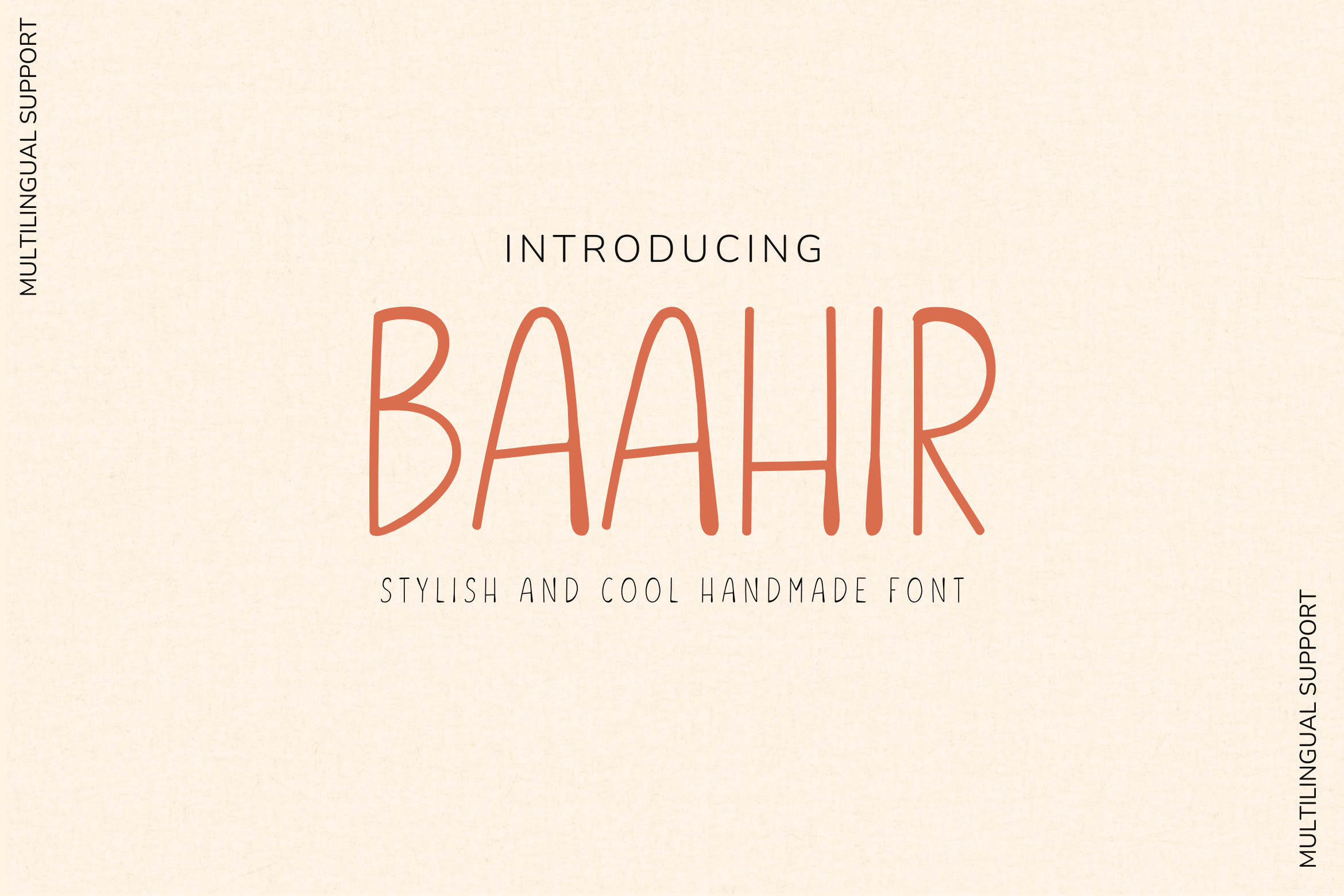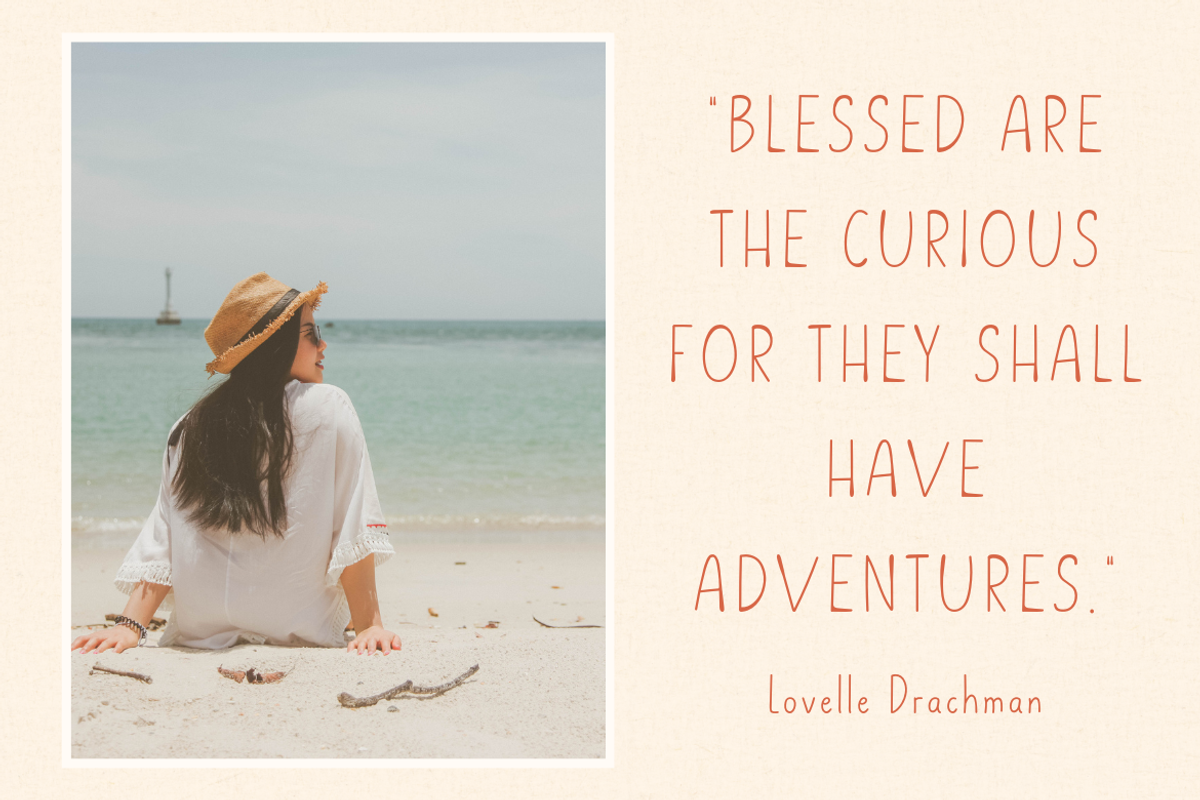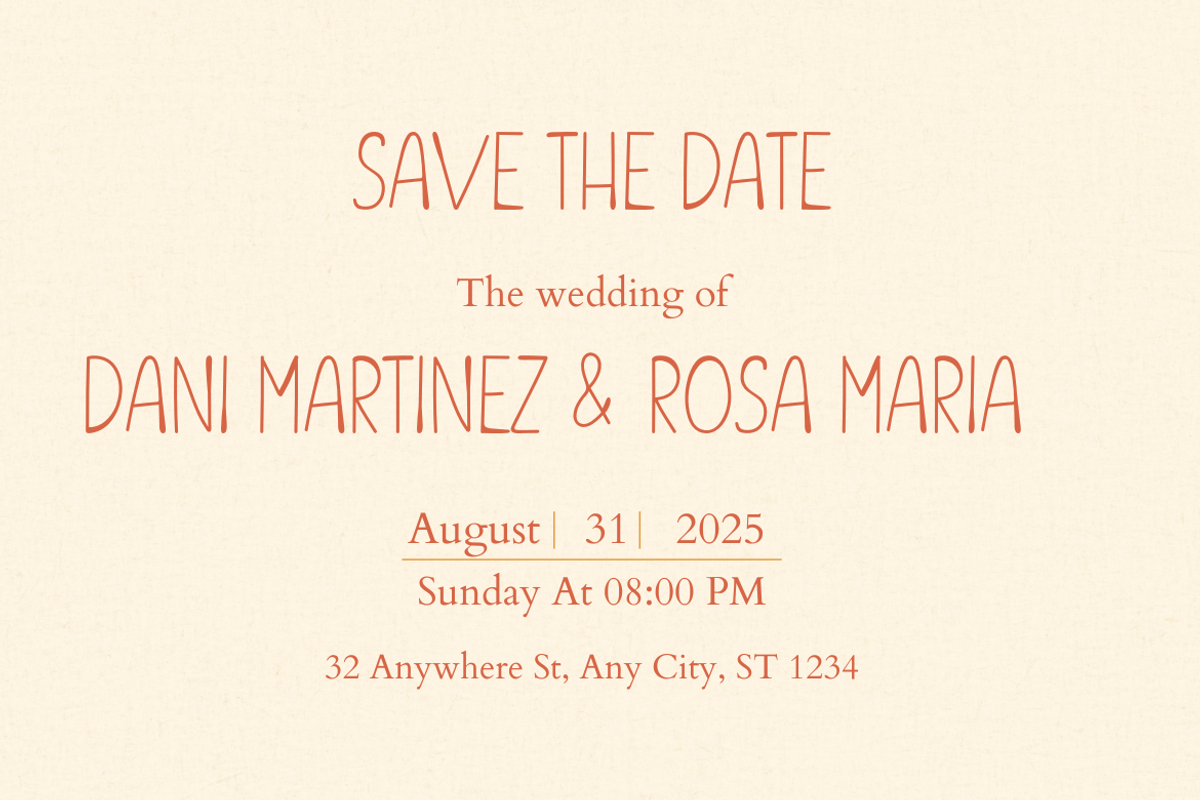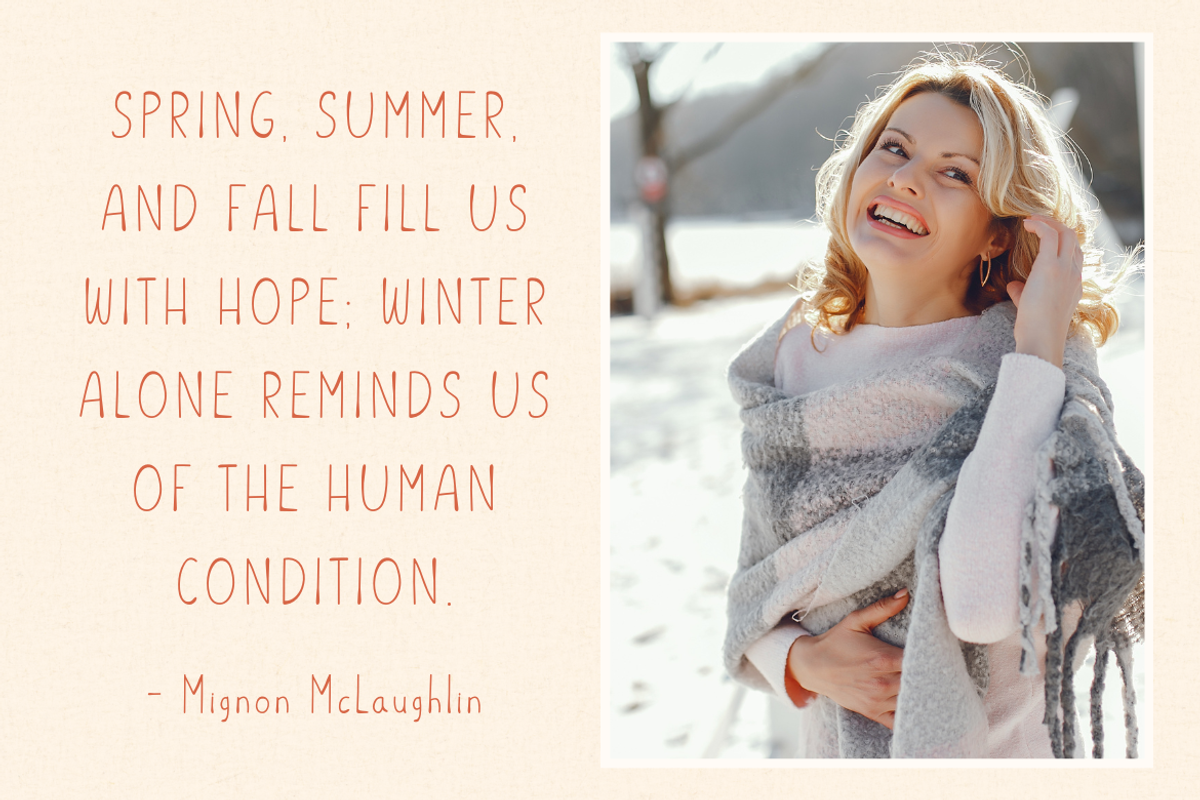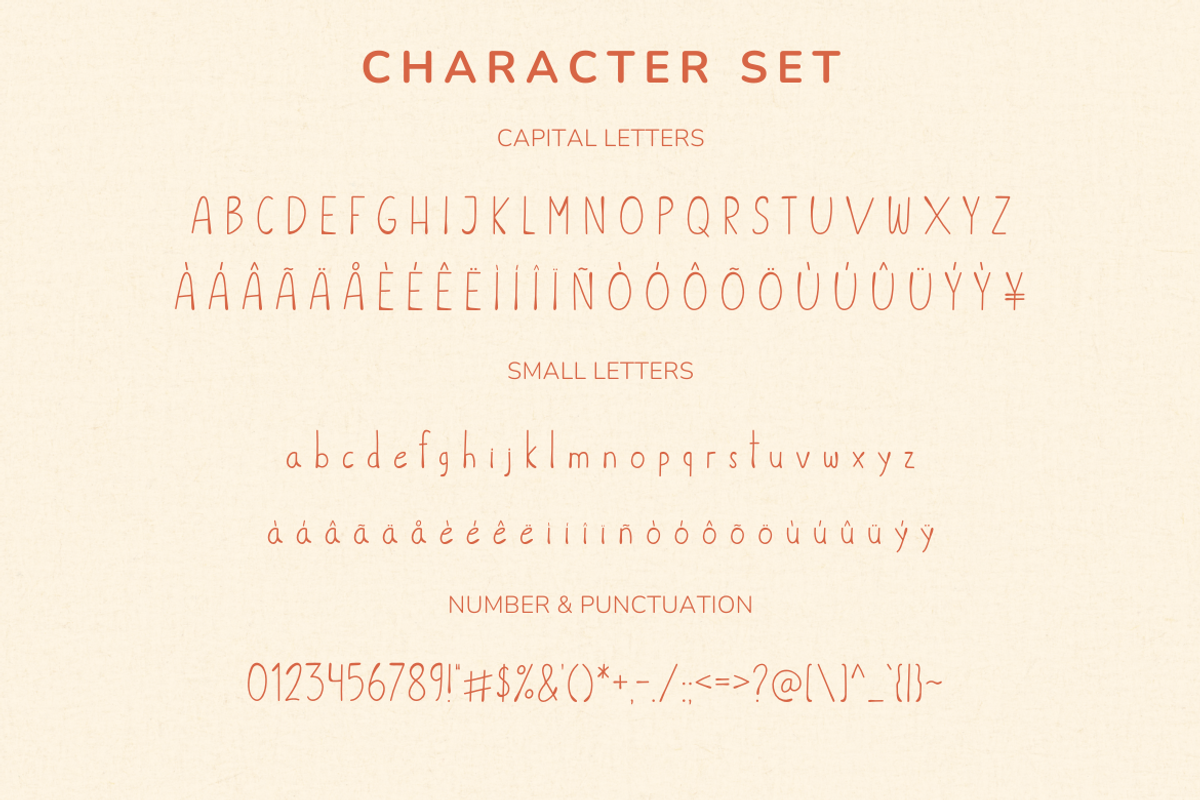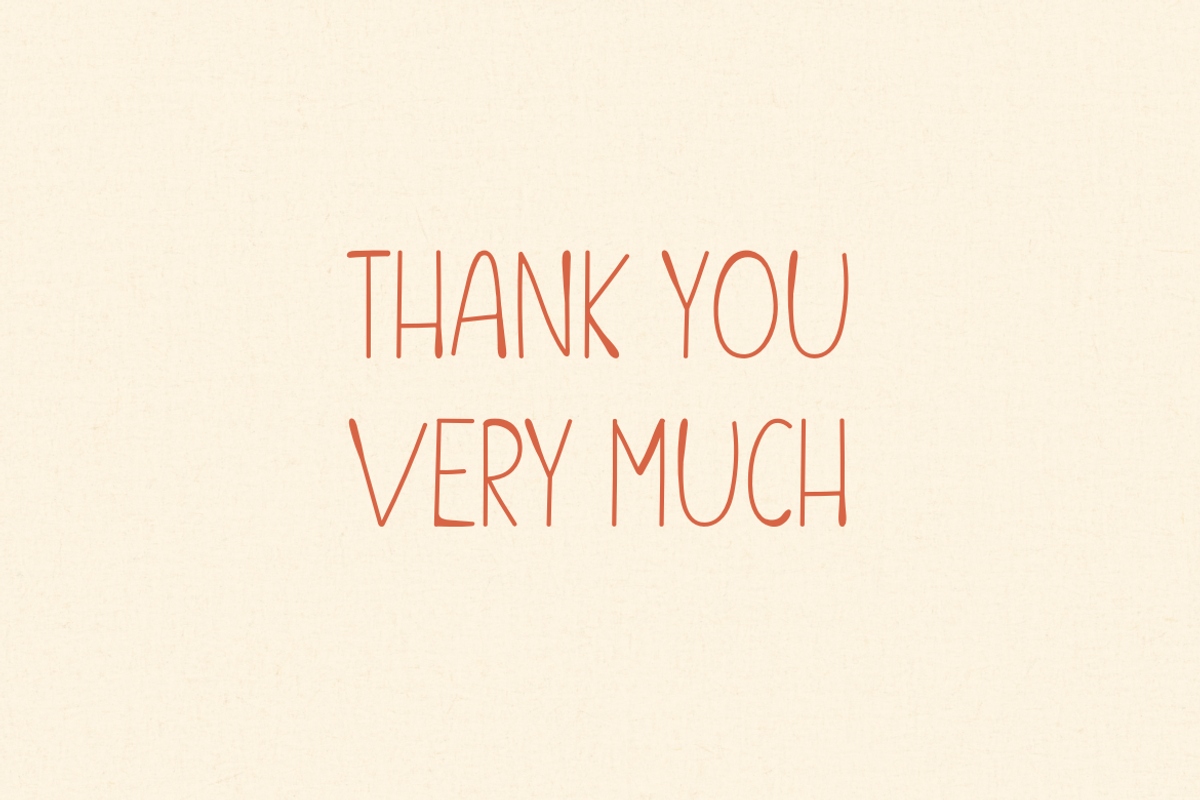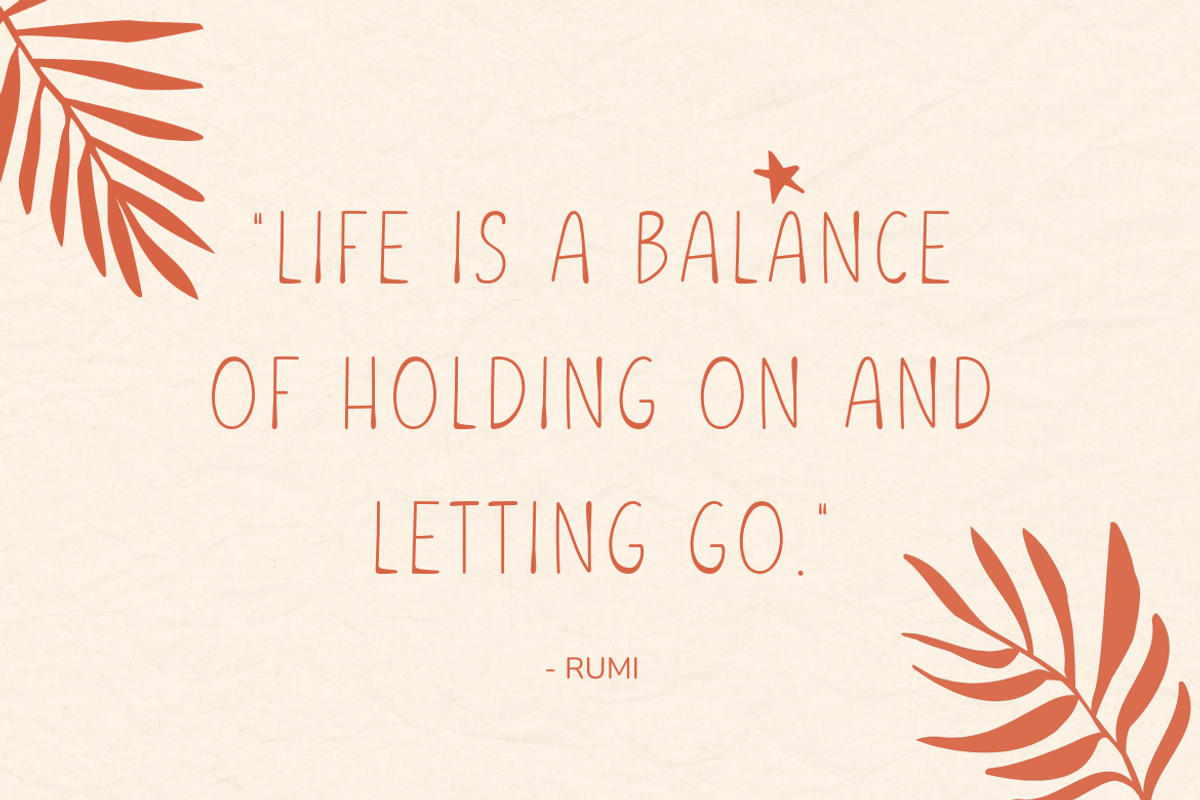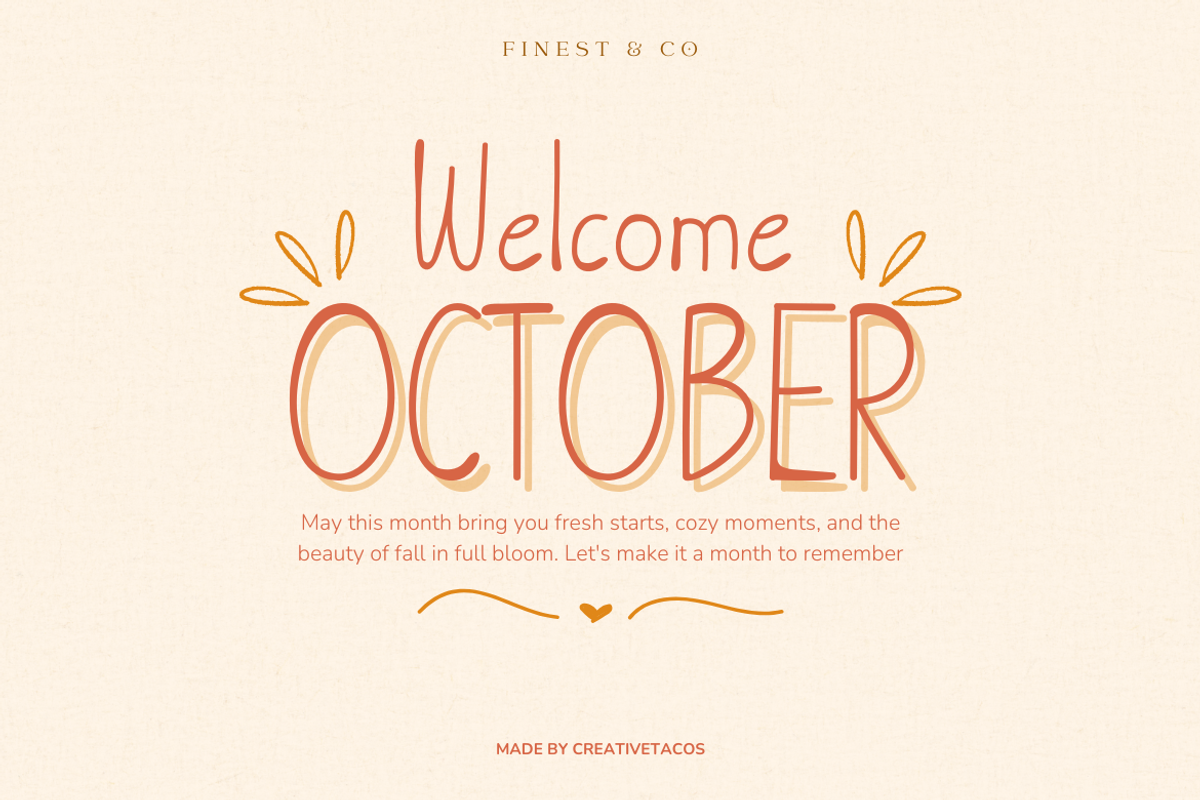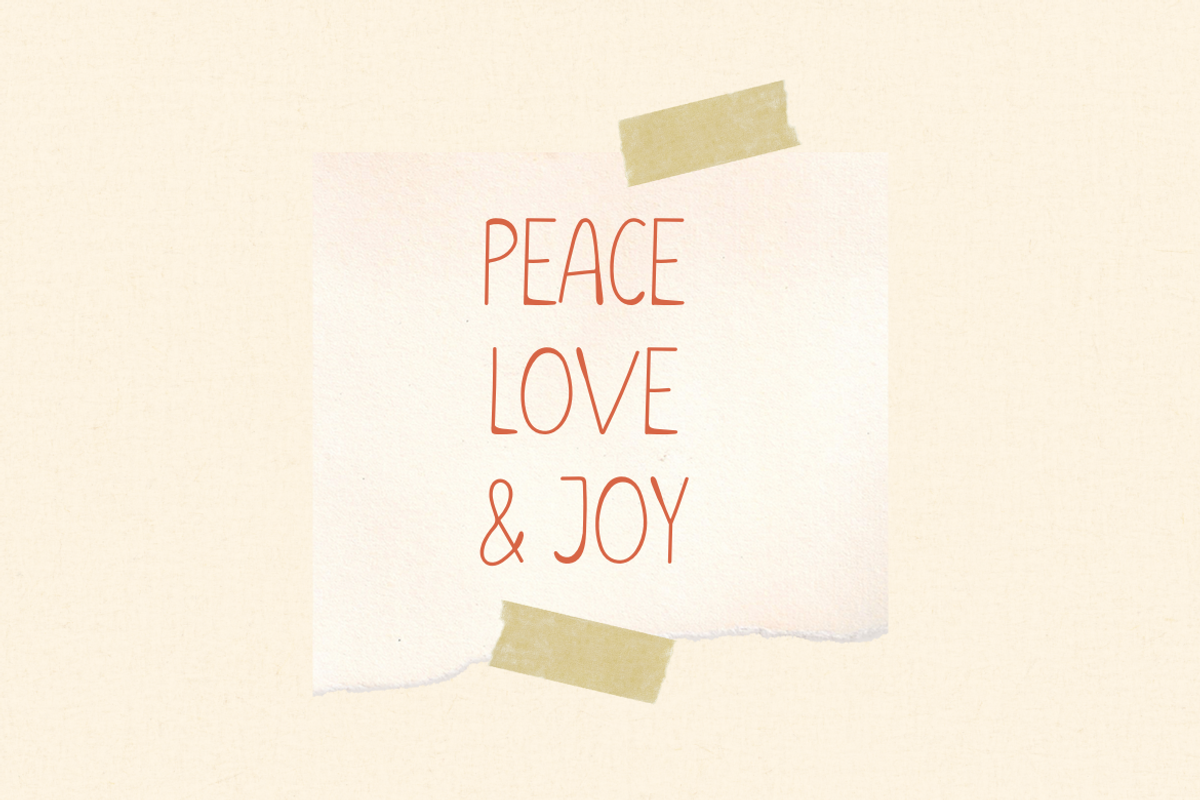
Baahir Handmade Font
Baahir Handmade Font is a stylish and creative handwritten font. It’s perfect for crafting unique designs like logos, invitations, posters, and greeting cards. Its natural and elegant look makes it suitable for modern, DIY, or artistic projects.
This font includes uppercase and lowercase letters, numbers, punctuation, and special characters, including international ones. It offers flexibility and works seamlessly with various design themes.
- Complete set of characters, including international ones (shown in the preview)